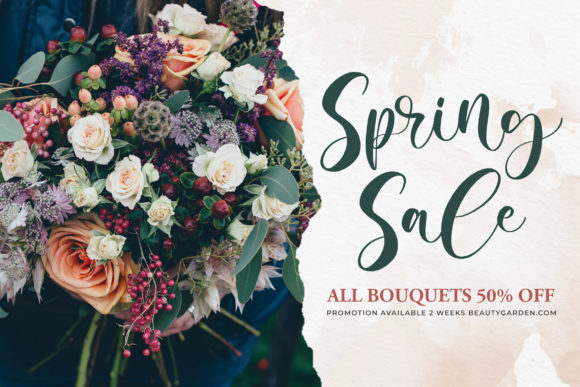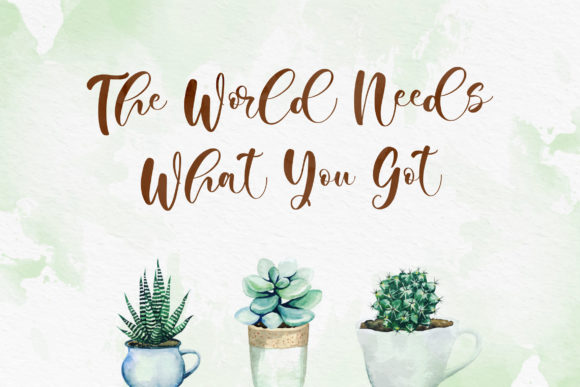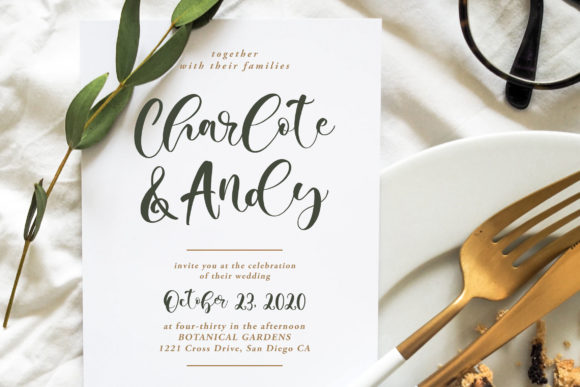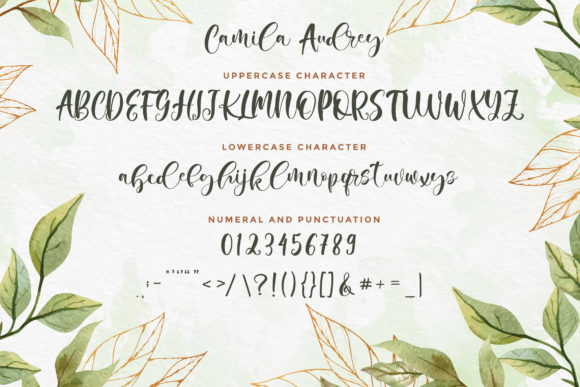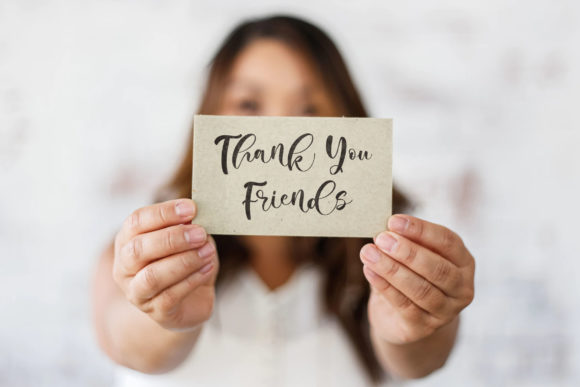
Camila Audrey Font: Elevate Your Designs with a Sweet and Stunning Script Font
Are you on the hunt for a font that exudes elegance, sophistication, and a touch of modern flair? Look no further than Camila Audrey Font. This beautiful script font is perfect for designers and crafters seeking to add a unique feel to their projects. With its authentic and sweet style, Camila Audrey is sure to inspire your creativity and take your designs to the next level.
What Makes Camila Audrey Font So Special?
Camila Audrey Font boasts a modern style that is both fresh and timeless. Its script letters are carefully crafted to provide a sense of fluidity and movement, making it perfect for creating gorgeous wedding invitations, stunning stationary art, eye-catching social media posts, and adorable greeting cards. Whether you’re a professional designer or a DIY crafter, this font is sure to become a staple in your collection.
Key Features of Camila Audrey Font
- Modern Style: Camila Audrey Font features a modern style that is perfect for designers and crafters who want to create fresh and contemporary designs.
- Script Letters: The font’s script letters are beautifully crafted to provide a sense of elegance and sophistication.
- Unique Feel: Camila Audrey Font has a unique feel that sets it apart from other fonts. Its authentic style is sure to add a touch of personality to your designs.
- Versatile: This font is perfect for a wide range of projects, including wedding invitations, stationary art, social media posts, and greeting cards.
Uses for Camila Audrey Font
Camila Audrey Font is a versatile font that can be used for a variety of projects. Here are some ideas to get you started:
- Wedding Invitations: Create beautiful and elegant wedding invitations that set the tone for the big day.
- Stationary Art: Use Camila Audrey Font to create stunning stationary art that makes a lasting impression.
- Social Media Posts: Add a touch of elegance to your social media posts with this beautiful script font.
- Greeting Cards: Create adorable greeting cards for special occasions, such as birthdays, anniversaries, and holidays.
Tips for Using Camila Audrey Font
Here are some tips for using Camila Audrey Font in your designs:
- Pair with Other Fonts: Experiment with pairing Camila Audrey Font with other fonts to create a unique and visually appealing design.
- Use in Combination with Images: Use Camila Audrey Font in combination with images to create a stunning design that tells a story.
- Experiment with Colors: Don’t be afraid to experiment with different colors to find the perfect combination that complements your design.
Camila Audrey Font is a sweet and stunning script font that is sure to elevate your designs. With its modern style, unique feel, and versatility, this font is perfect for designers and crafters seeking to create beautiful and elegant designs. Whether you’re creating wedding invitations, stationary art, social media posts, or greeting cards, Camila Audrey Font is sure to inspire your creativity and take your designs to the next level.